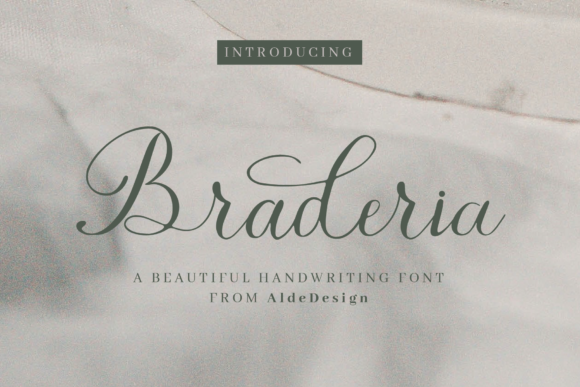
Immerse yourself in the enchanting world of Braderia Script, a font that exudes both charm and sophistication. With its captivating curves and delicate strokes, this script font will add a touch of timeless elegance to your designs.
Imagine your wedding invitations adorned with the graceful script of Braderia, conveying the joy and romance of your special day. Craft heartfelt thank you cards that express your gratitude with a touch of whimsy. Let your quotes and greeting cards come alive with the warmth and personality that only Braderia Script can provide.
For businesses seeking to make a lasting impression, Braderia Script is the perfect choice for logos and business cards. Its refined style adds a touch of professionalism and credibility to your brand identity.
But the versatility of Braderia Script doesn't end there. It's the perfect font to capture the festive spirit of Christmas. Its charming letters will add a touch of holiday magic to your designs, creating a warm and inviting atmosphere.
With Braderia Script, you'll have access to a world of creative possibilities. It's PUA encoded, making it effortless to access all the glyphs and swashes you need to add a touch of flair to your designs.